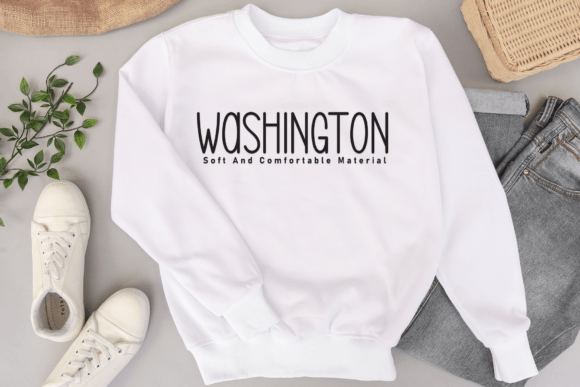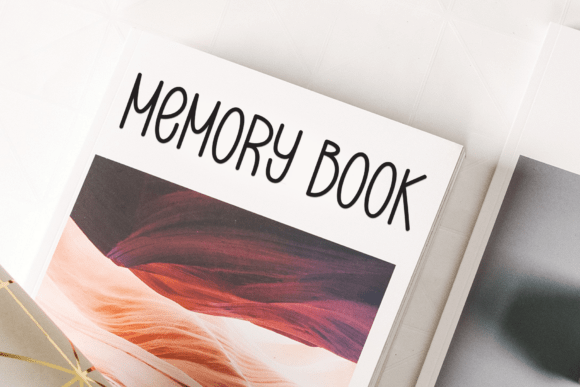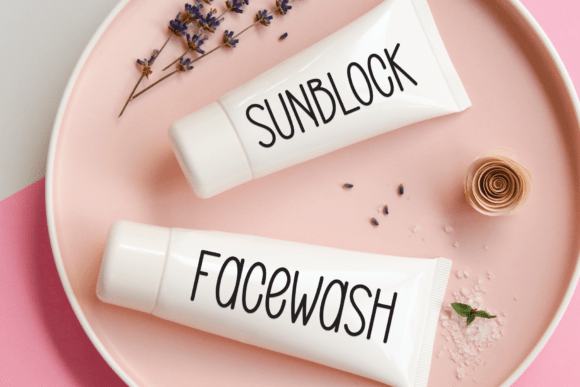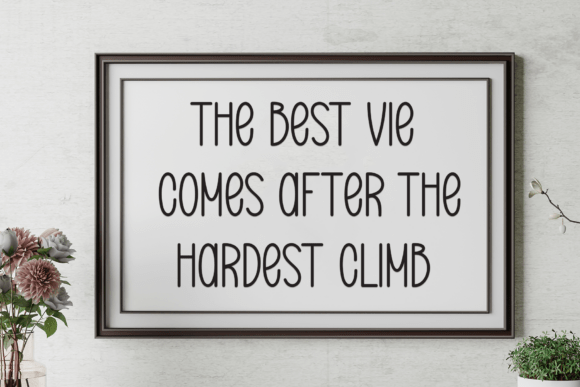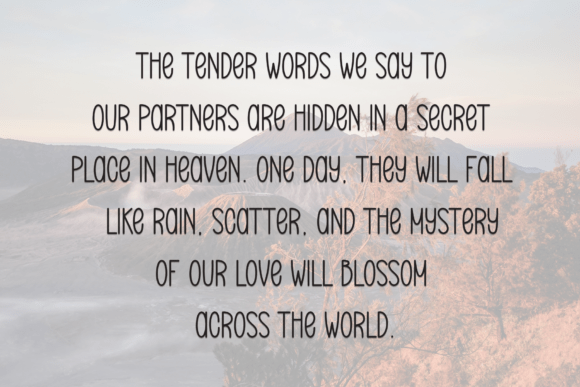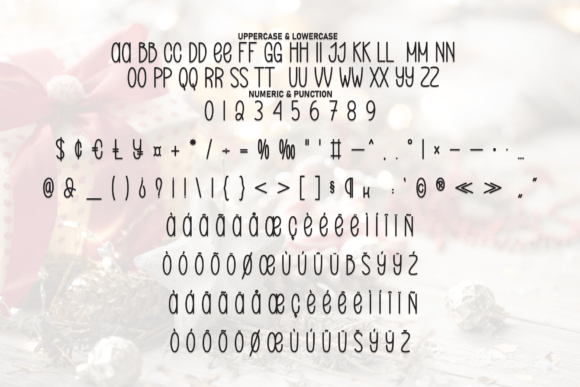
Unlock the Magic of the Holiday Season with Christmas Wonderful Font
It’s the most wonderful time of the year – and we’re not just talking about the holiday cheer. As designers, we’re always on the lookout for the perfect font to capture the essence of the season. Whether it’s for a festive branding project or a digital campaign, the right font can make all the difference.
Enter Christmas Wonderful Font, a delightful display font that embodies the spirit of modern handwritten typography. With its clean lines, balanced letterforms, and subtle rounded edges, this font is the perfect addition to any design. Ideal for branding, headlines, packaging, and digital content, Christmas Wonderful Font adds a warm and inviting touch to any project.
For designers, this font is a valuable asset – offering clarity, charm, and a polished finish that’s sure to impress. Whether you’re working on a holiday-themed project or just need a versatile font to add some magic to your designs, Christmas Wonderful Font is sure to deliver.
Key Features of Christmas Wonderful Font
- Unique Characteristics:
- Hand-drawn illustrations of Christmas elements
- Special effects like snowflakes, holly, and berries
- Support for various languages, including English, Spanish, and French
Christmas Wonderful Font Review
I recently had the chance to work with the Christmas Wonderful Font, and I must say it’s a mixed bag. ✨ Here are some things that work well:
- It’s incredibly festive and perfect for holiday-themed designs.
- The font is highly customizable, with plenty of options for color, size, and style.
- The characters are well-designed and don’t appear too pixelated or low-quality.
However, there are some limitations that might be a problem for some designers:
- ⚠️ The font is not as versatile as some other holiday-themed fonts, making it less suitable for designs that require a more neutral tone.
- ⚠️ Some characters may not be compatible with all devices or browsers, which can cause display issues.
Overall, I’d say the Christmas Wonderful Font is a good choice for designers who are looking for a festive, fun font to add some holiday cheer to their designs. However, it may not be the best option for more complex or neutral designs.
For best results, use the font in conjunction with festive graphics and colors.
For a more realistic look, use the font in conjunction with vector shapes and textures.
For a cohesive look, use the font in conjunction with holiday-themed backgrounds and graphics.
The “Christmas Wonderful Font” is ideal for:
Creating holiday greeting cards and invitations
Designing festive social media graphics
Adding a touch of holiday cheer to presentations and reports
Creating custom holiday-themed merchandise
Great Vibes is a fun and energetic font that features bold, cursive lines and playful details. It’s perfect for creating a lively and festive atmosphere, especially for holiday-themed designs. Compared to Christmas Wonderful Font, Great Vibes has a more casual and less formal feel, making it ideal for social media and advertising designs.
Rock Salt is a distressed font that features bold, rough lines and ornate details. It’s perfect for creating a rustic and vintage atmosphere, especially for holiday-themed designs. Compared to Christmas Wonderful Font, Rock Salt has a more rugged and less polished feel, making it ideal for designs that need a touch of grit and realism.
Are there any specific design requirements for using the Christmas Wonderful Font?